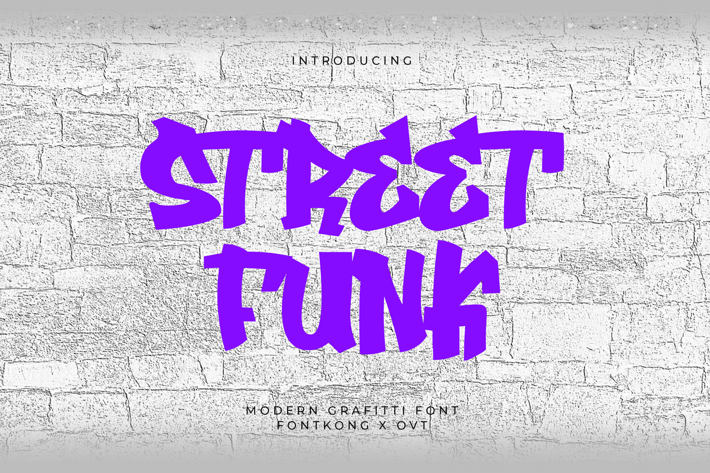
StreetFunk Graffiti - Modern Graffiti Font
Unleash the raw energy of street art with "StreetFunk Graffiti," a modern graffiti font that captures the essence of urban culture. Perfect for designs that demand a bold and edgy look, this font is ideal for posters, album covers, apparel, and more.
"StreetFunk Graffiti" features a dynamic and expressive style, with characters that mimic the fluid strokes and vibrant flair of real graffiti. Each letter is crafted to convey a sense of movement and spontaneity, making your designs pop with authenticity and attitude.
This font includes a full set of uppercase and lowercase letters, numerals, and punctuation, providing the flexibility you need for various design projects. Whether you're creating a streetwear brand, a music event poster, or any project that needs a touch of urban flair, "StreetFunk Graffiti" delivers the perfect mix of modernity and street style.
"StreetFunk Graffiti" is your go-to font for infusing your designs with the rebellious spirit of street art.